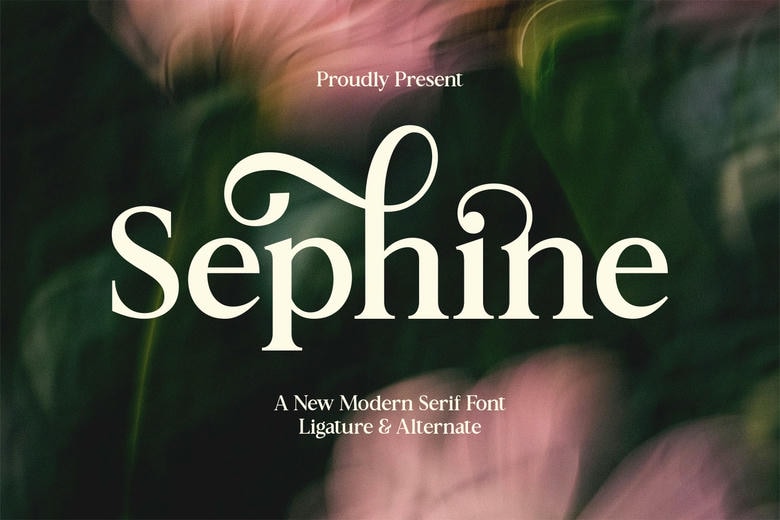
Sephine Font
Sephine is a new modern serif font. The romantic and elegant nature of the font is well matched by the ethereal and artistic setting, which is emphasized by the beautiful ligatures and alternate swashes.
Sephine Serif Font